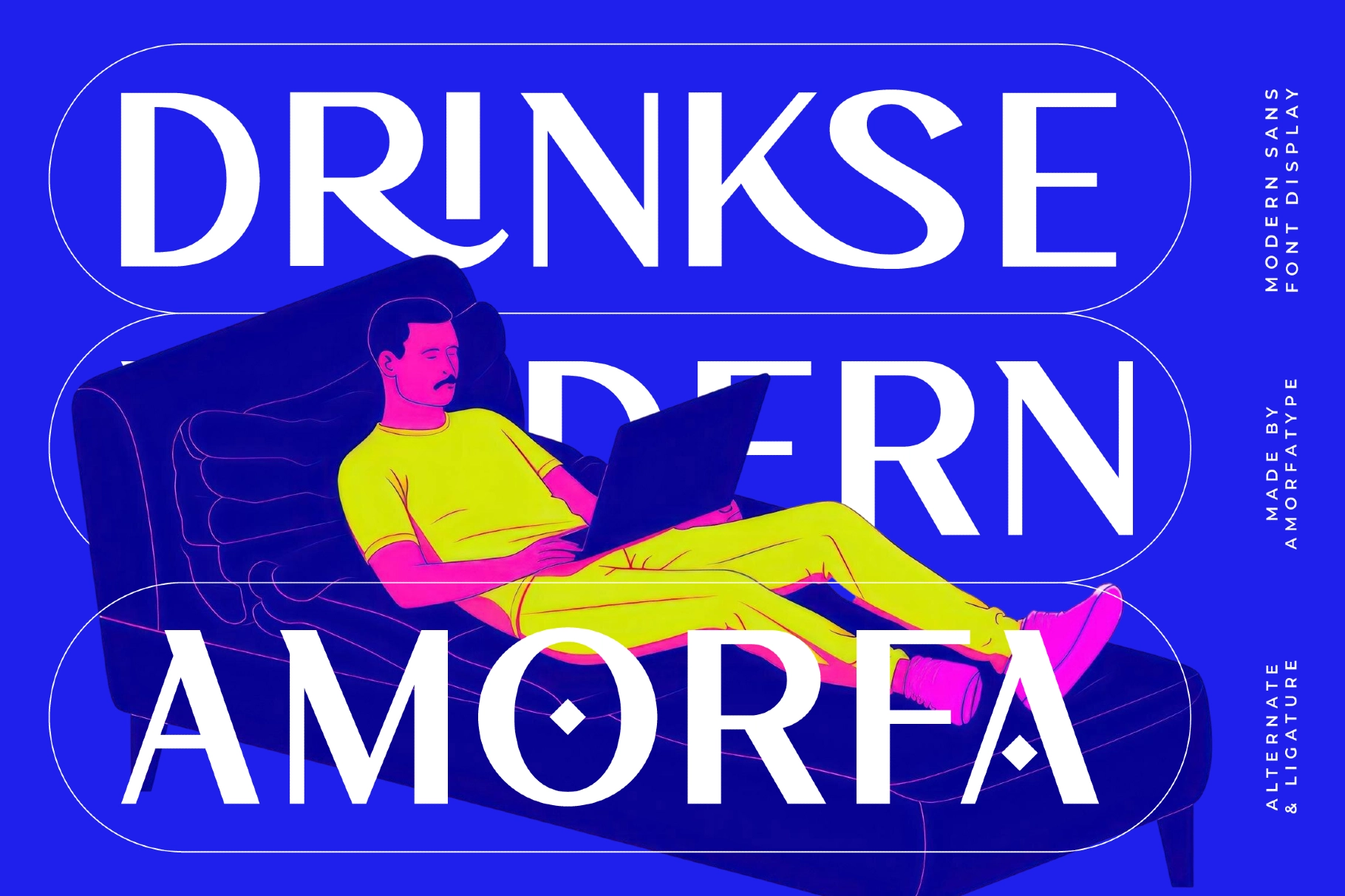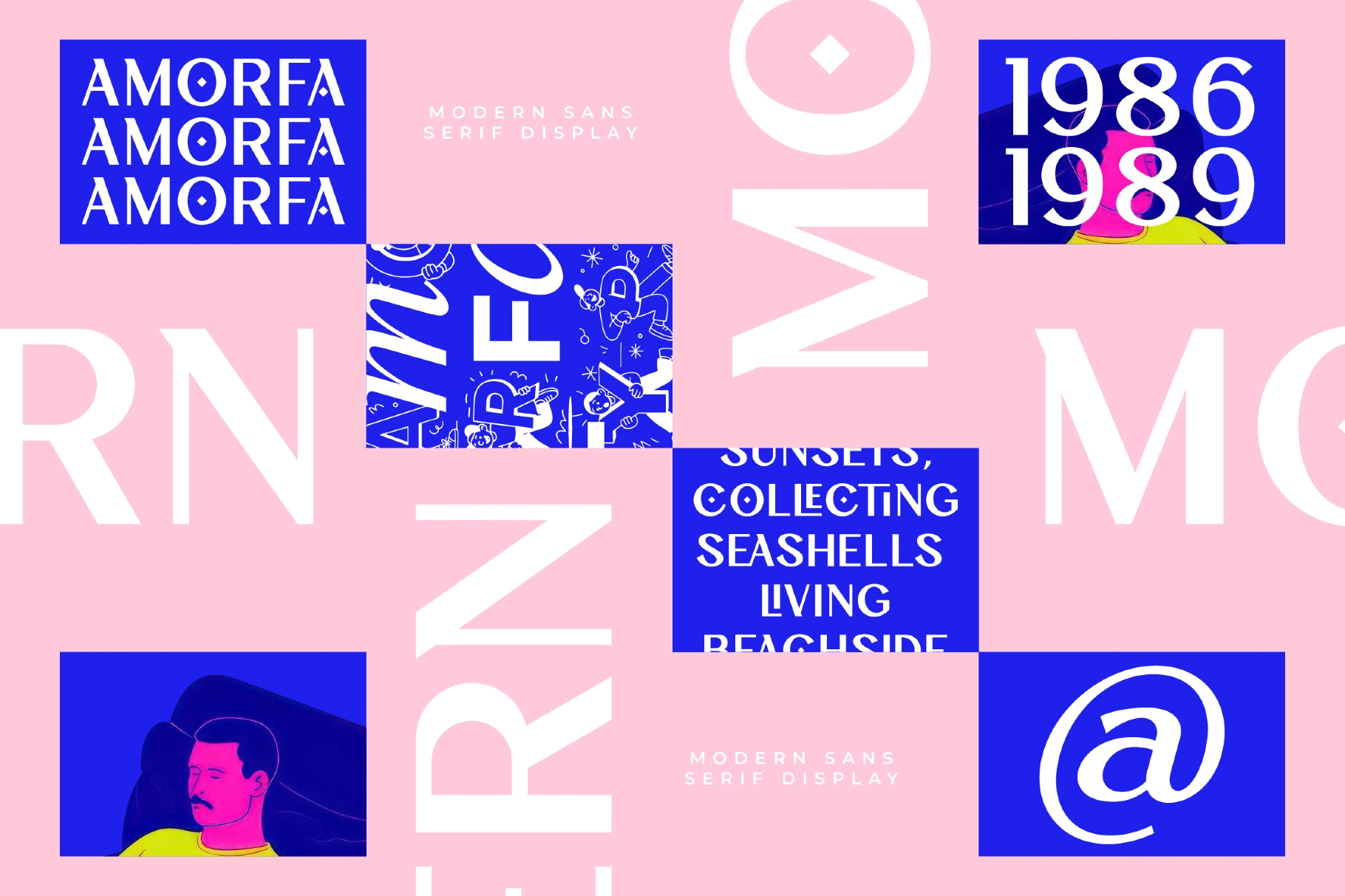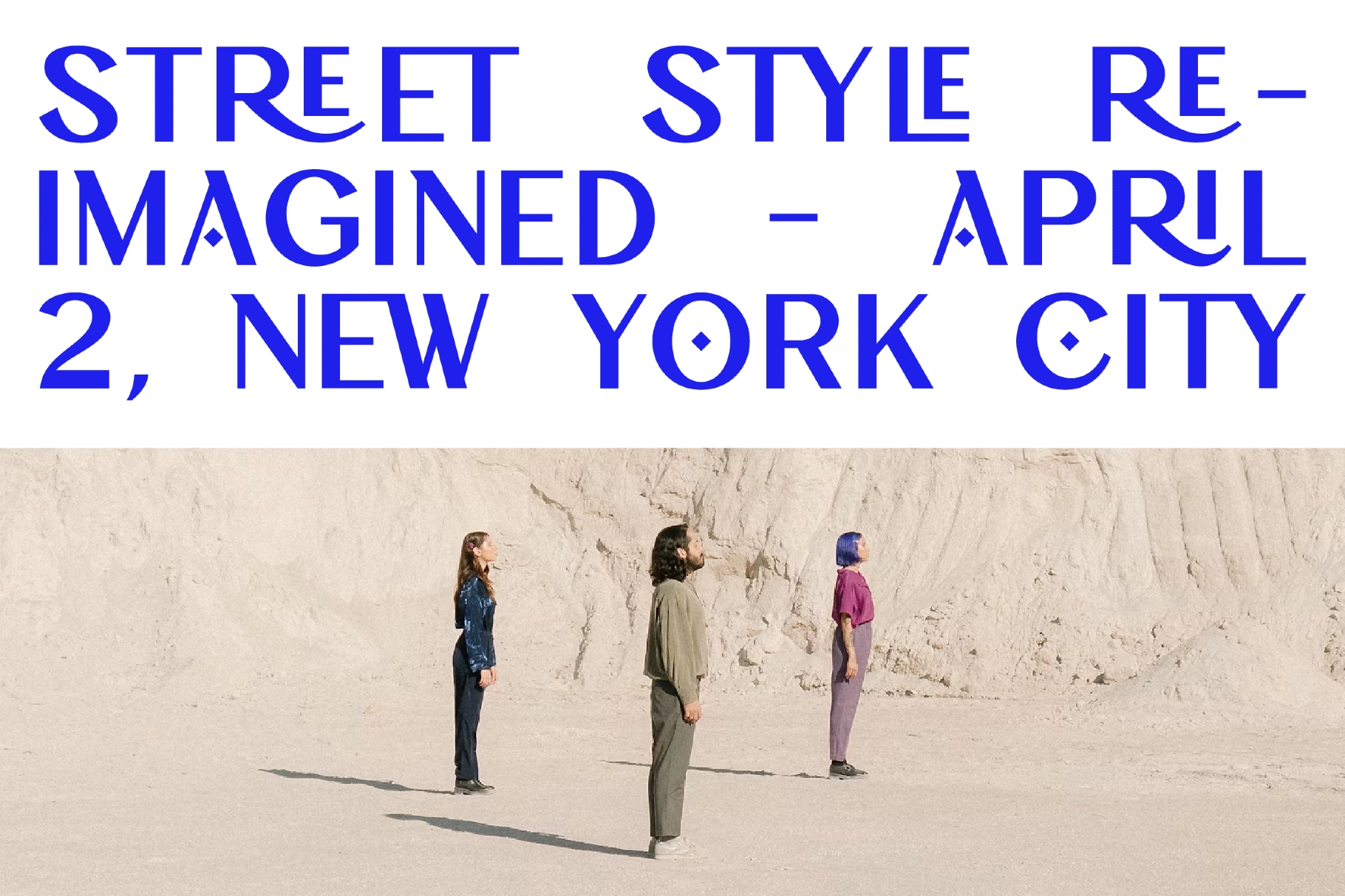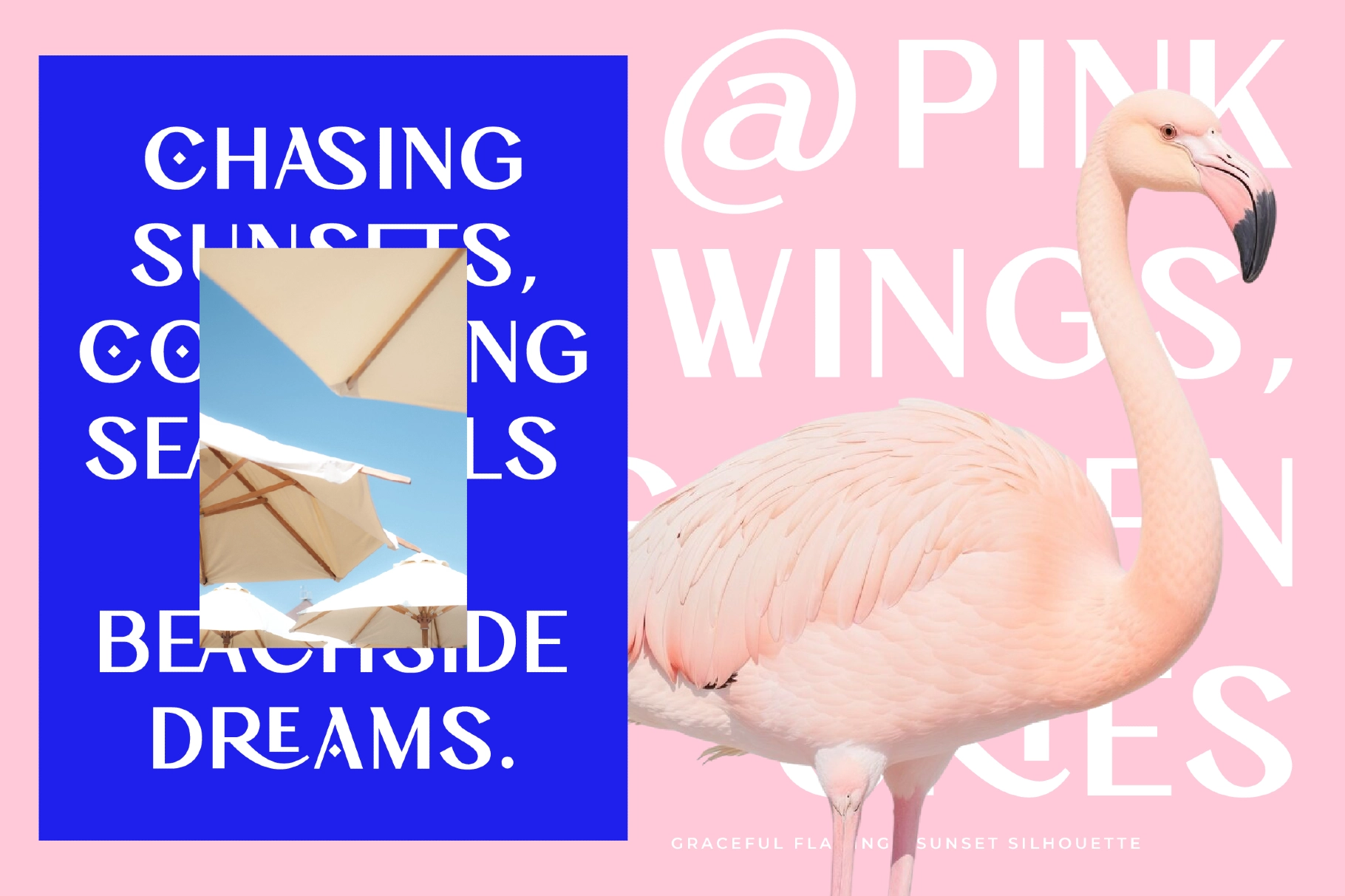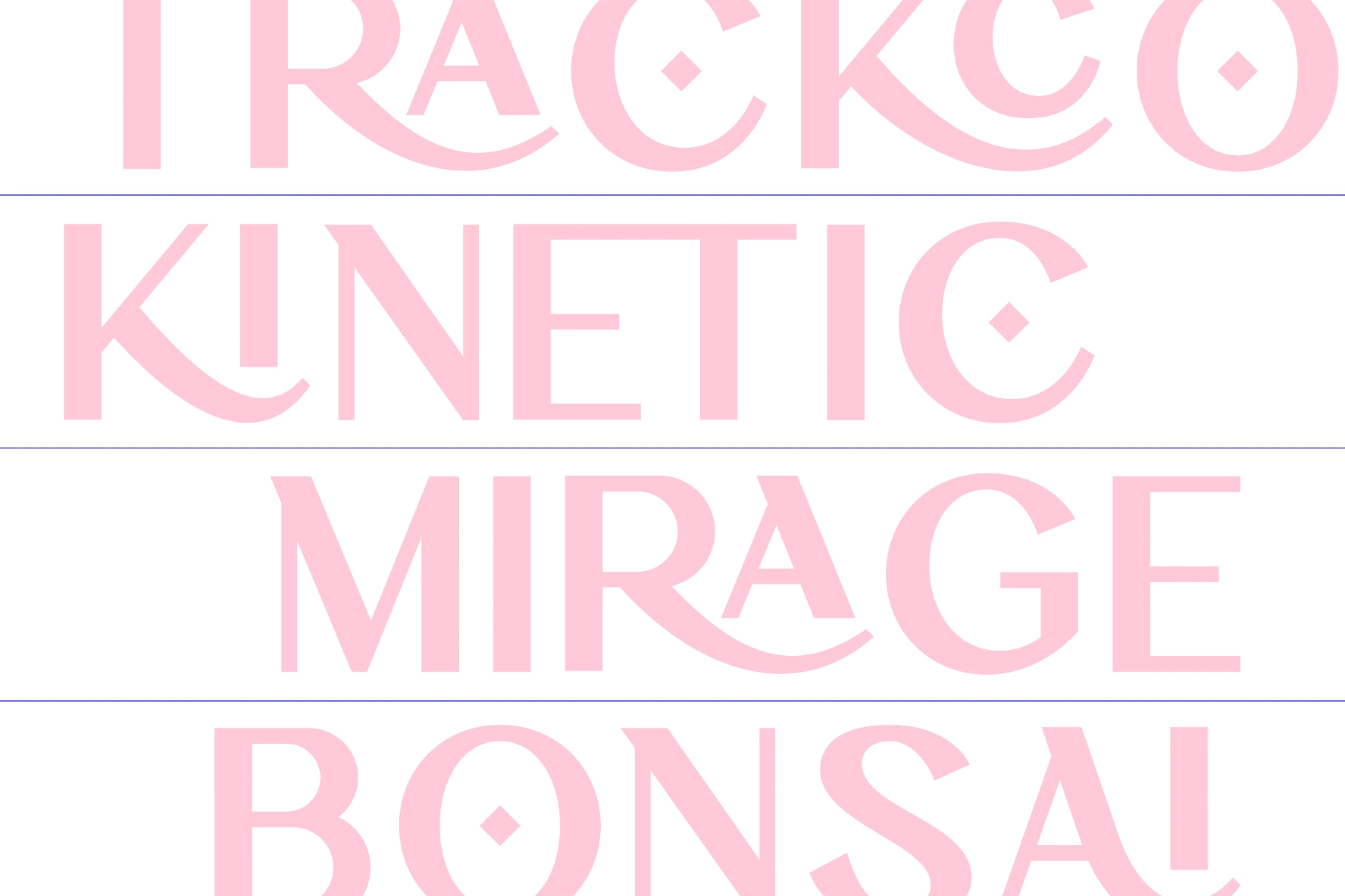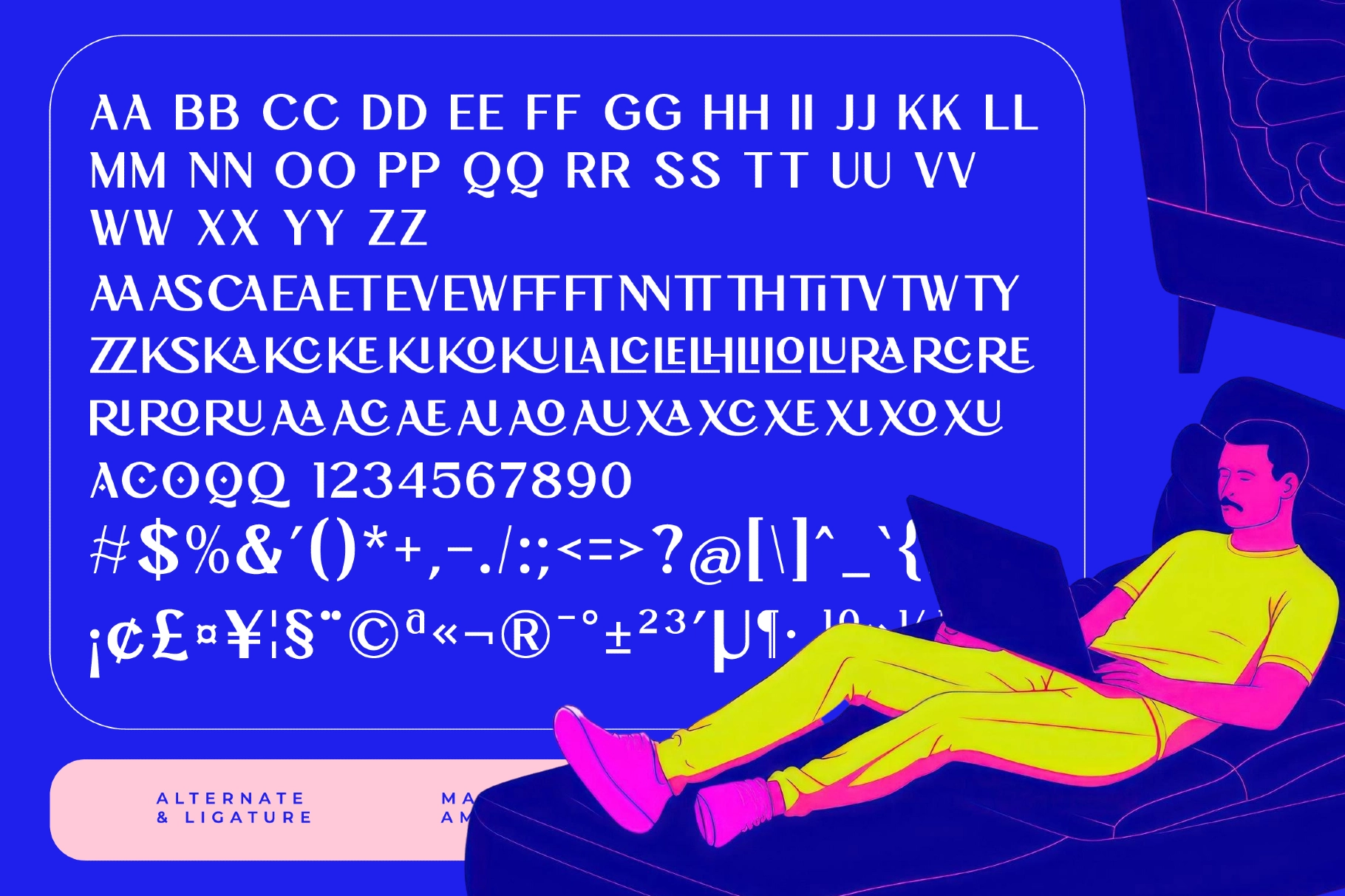
Drinkse - Modern Display Sans Font
Drinkse is a high-contrast sans serif display font with wide, blocky capitals, razor-thin crossbars, and diamond-punched counters that cut into the O, C, Q, and i — a construction closer to late-80s Italian poster lettering than to the neutral grotesque tradition. The counters alone give it a graphic authority that most caps-heavy display fonts have to earn through weight alone.
It goes loud on a poster and holds its personality at medium display size. The ligature and alternate set adds variety for tight-tracked headline work. Use it for fashion event posters, streetwear branding, editorial mastheads, album covers, product launch campaigns, sport and lifestyle brand identities, packaging headers, cultural venue graphics, social campaign titles, and web hero type.
• Uppercase & lowercase;
• Numerals, punctuation & symbols;
• Ligatures & alternates;